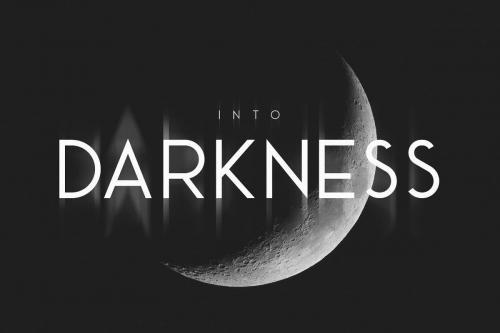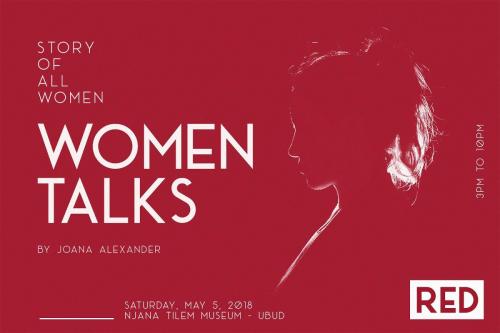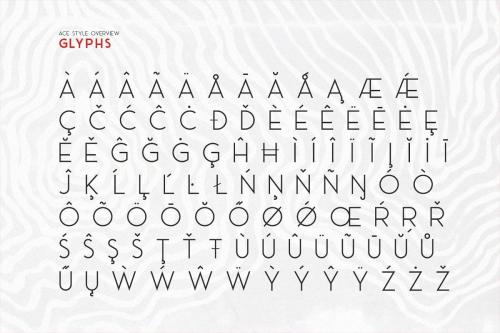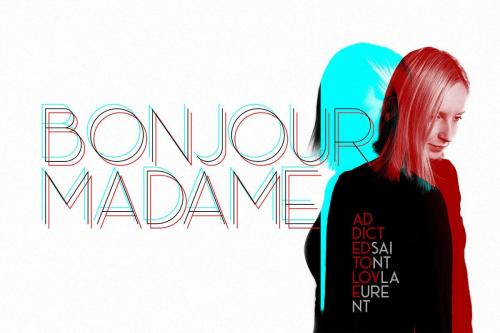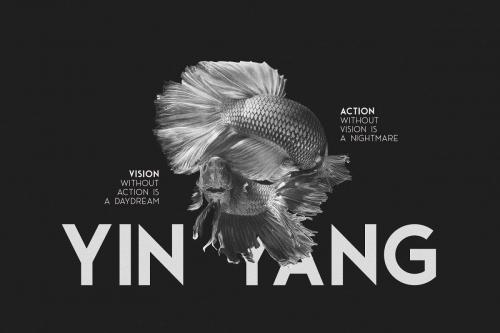
Fontaine Typeface
Fontaine is a typeface inspired by art deco style, detective stories, vintage headlines and ads. It includes uppercase letters, numerals and some punctuation.
Some letters contain alternate styles, which you can use by toggling caps lock.